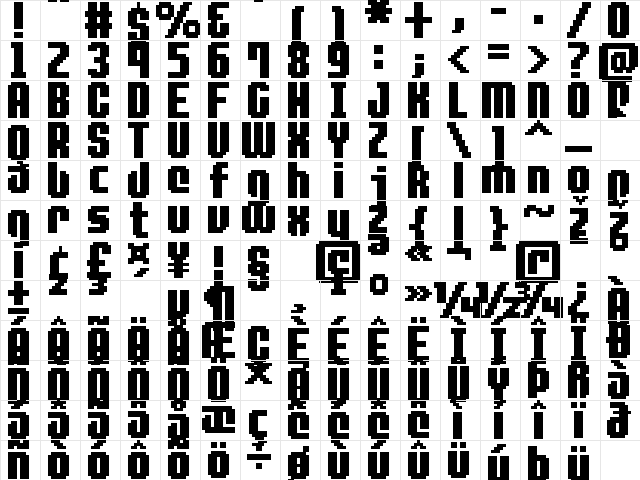
FFF Spacedust Regular Free Font
FFF Spacedust Regular
Foundry: Fonts For Flash
Designer: Fonts For Flash
Design Context for FFF Spacedust
FFF Spacedust is a composed and adaptable typeface that performs quietly and consistently across a wide range of design contexts.